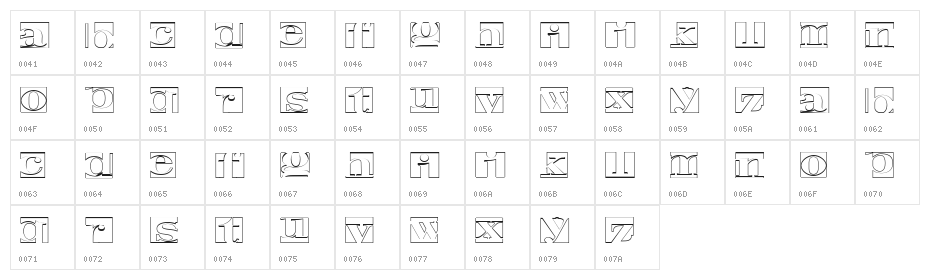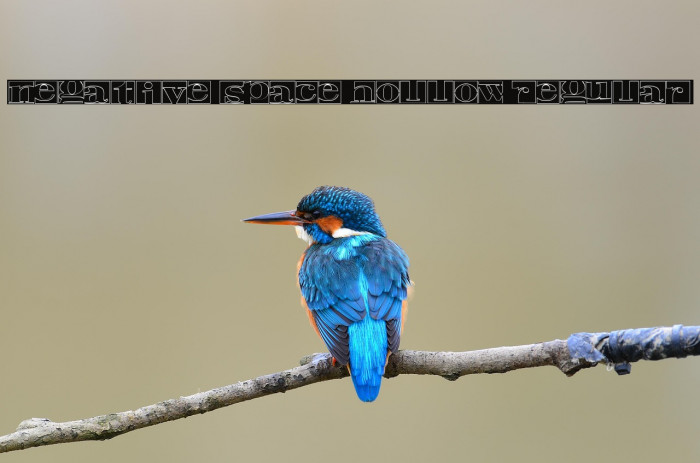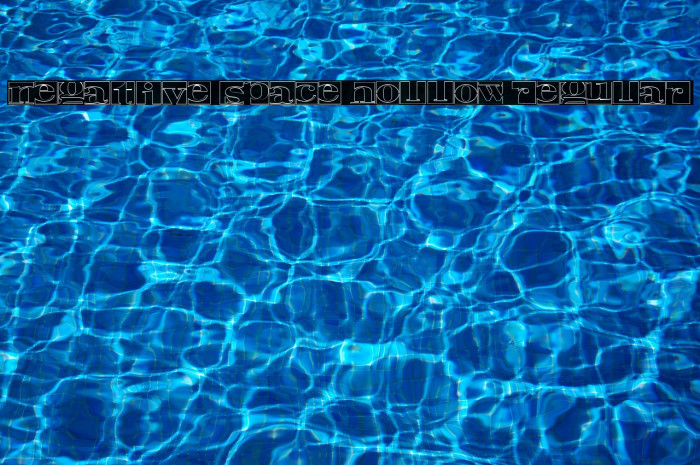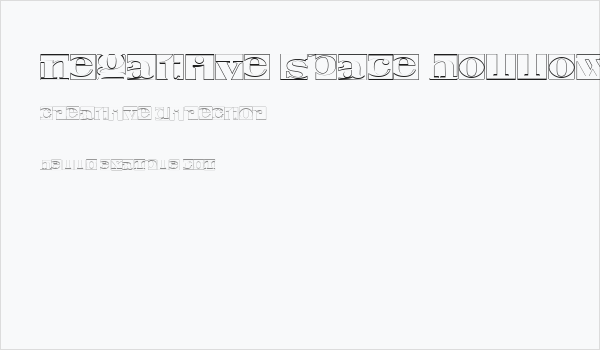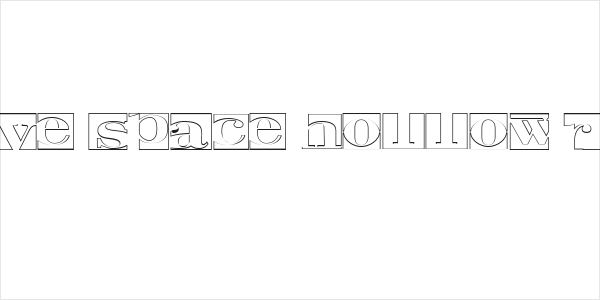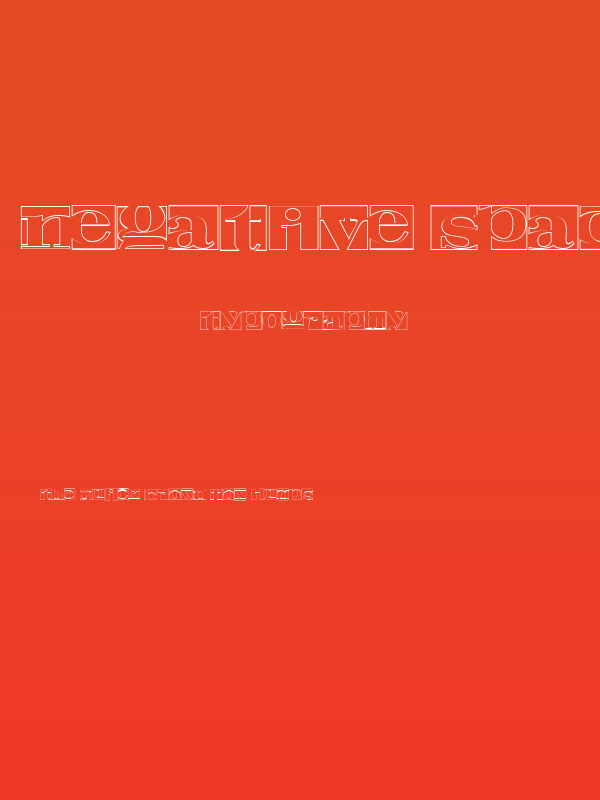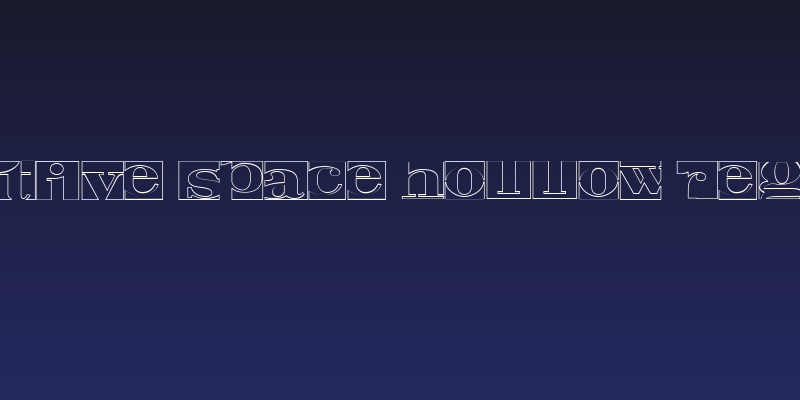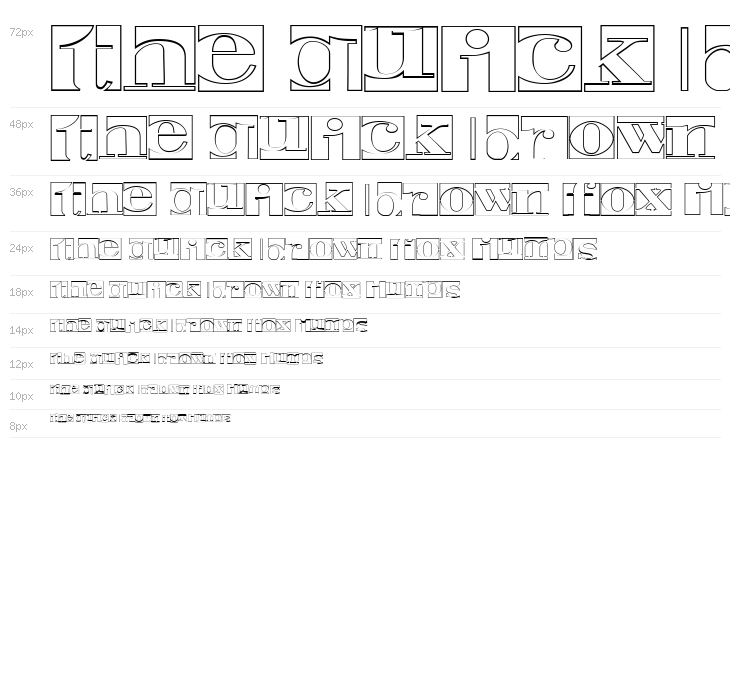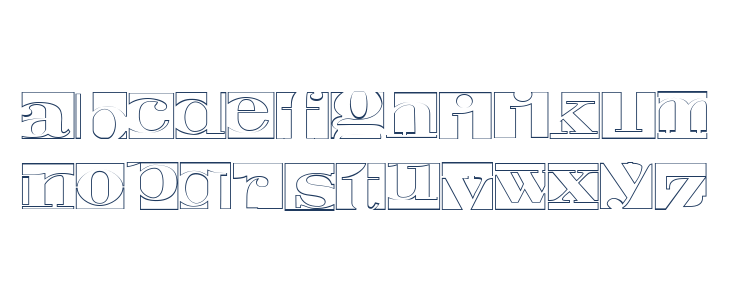
Negative Space Hollow Regular Font
Negative Space Hollow Regular Description
This font features a unique hollow design with a focus on negative space, creating an intriguing visual effect. Each character is outlined with a thin, consistent stroke, while the interior remains open, giving it a light and airy appearance. The geometric shapes and clean lines contribute to a modern aesthetic, making it stand out in any design. The uppercase and lowercase letters maintain a uniform style, ensuring readability while adding a decorative touch. The numbers and special characters are crafted with the same attention to detail, offering a cohesive look across all elements.